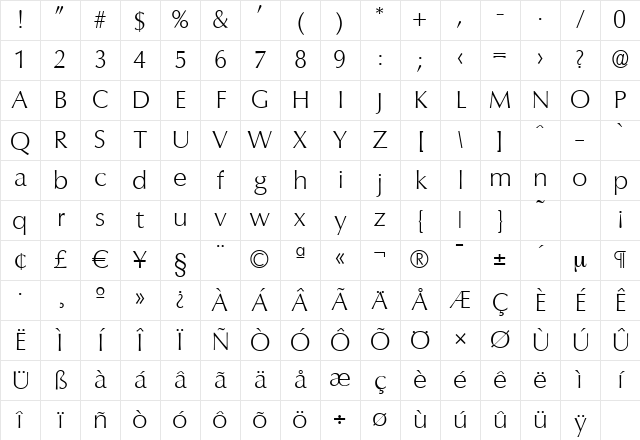
ColumbiaSerial-Xlight Regular
ColumbiaSerial-Xlight Family
Design Context for ColumbiaSerial-Xlight
ColumbiaSerial-Xlight is a composed and adaptable typeface that performs quietly and consistently across a wide range of design contexts. Its slender proportions lend an understated elegance to any composition.